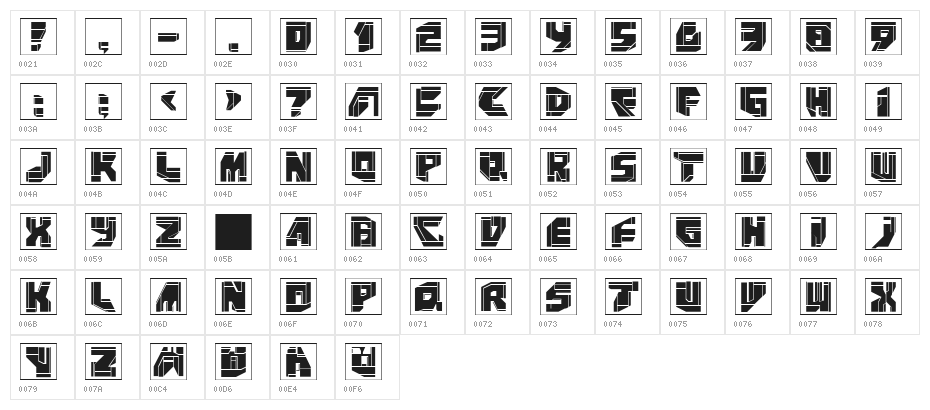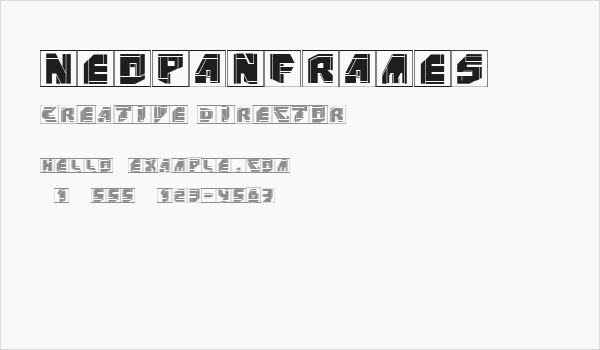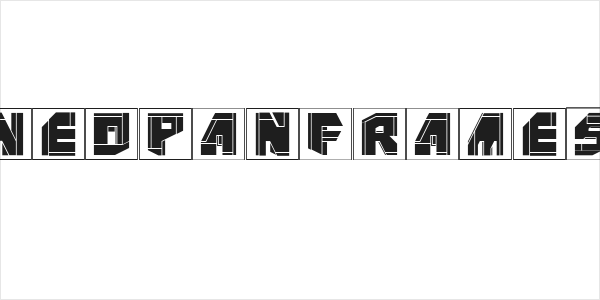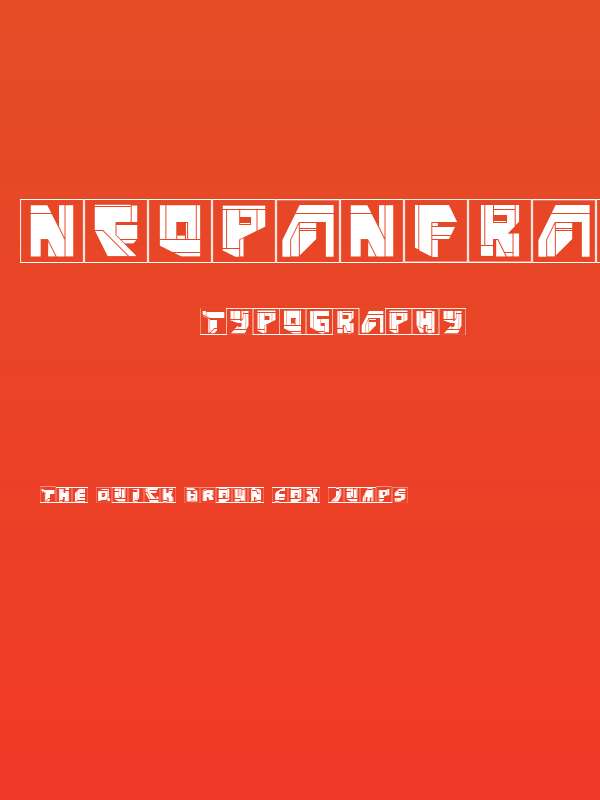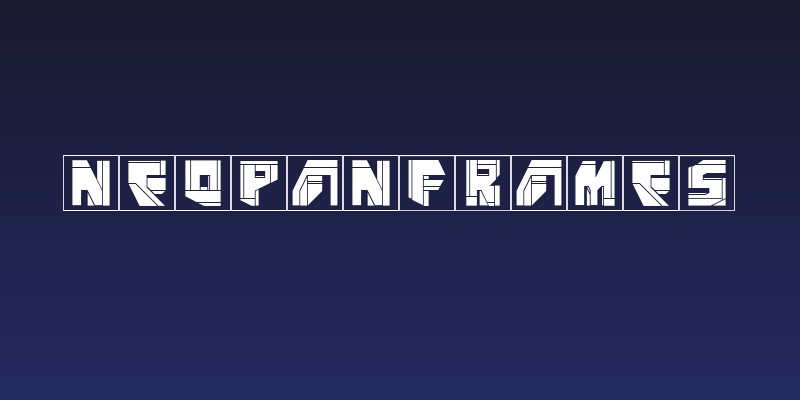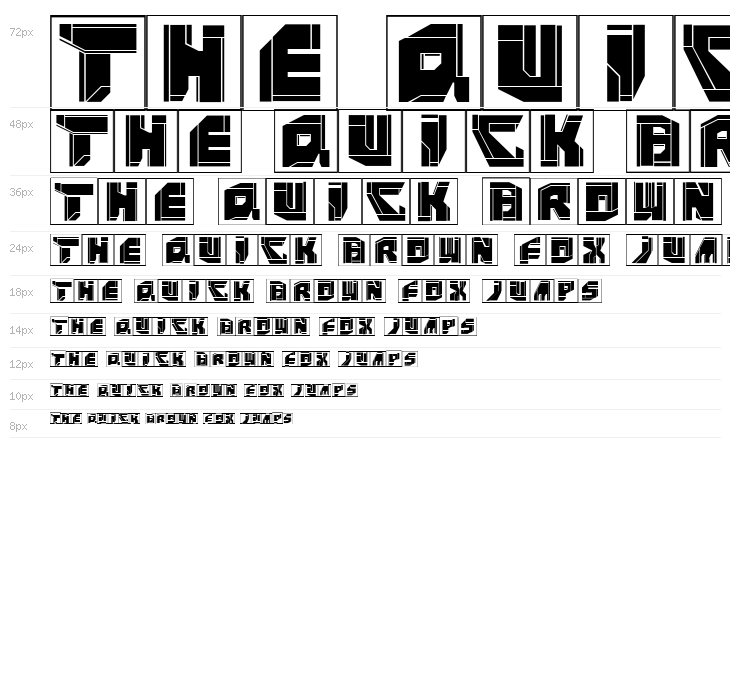
NeoPanFrames Font
NeoPanFrames Description
This font features a bold, geometric design with a three-dimensional effect, giving each character a futuristic and dynamic appearance. The letters are constructed with sharp angles and thick lines, creating a sense of depth and movement. The style is reminiscent of digital or sci-fi themes, making it ideal for projects that require a modern and edgy look. The uppercase and lowercase letters maintain a consistent style, while the numbers and special characters are designed to match the overall aesthetic. This font is perfect for creating eye-catching headlines, posters, and digital artwork.
| Proposed Projects | Perfect for futuristic branding, sci-fi movie posters, digital artwork, and tech-related designs. |